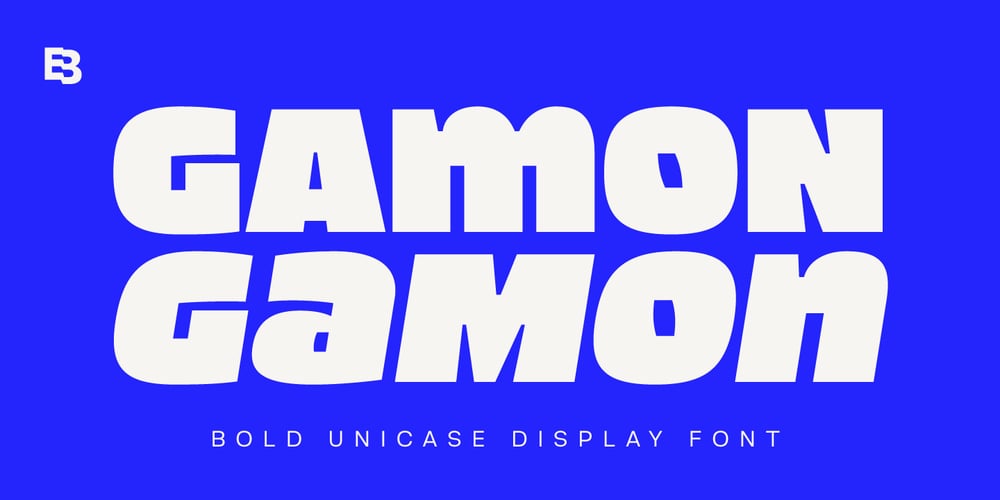
Gamon Font Family was designed by Eko Bimantara and published by Eko Bimantara. Gamon contains 2 styles and family package options. Gamon is an innovative and daring unicase display font that is a perfect example of modern typography. The absence of traditional lowercase letters and the integration of multiple glyphs in the uppercase letters create a distinct and captivating design. The uniform size of the letters adds to the font’s appealing appearance, making it an ideal choice for large display layouts, branding, posters, and titles.Gamon’s typography is perfect for designers who are looking for a fresh and unusual aesthetic. It can transform any digital or print design stand out from the rest. Gamon’s versatility makes it suitable for a broad range of design applications, including logos, packaging, and marketing materials. Gamon’s boldness and uniqueness make it an excellent choice for designers who want to break free from the conventional design constraints. With Gamon, designers can create designs that are not only visually appealing but also memorable and impactful.